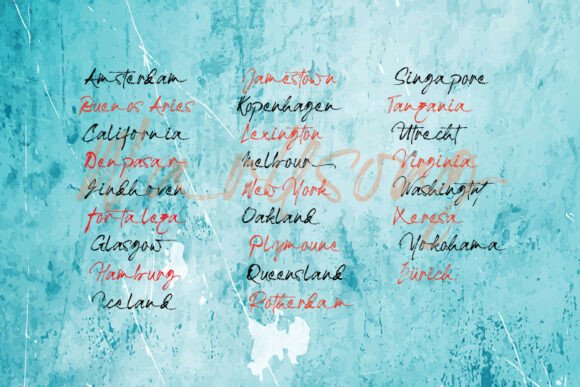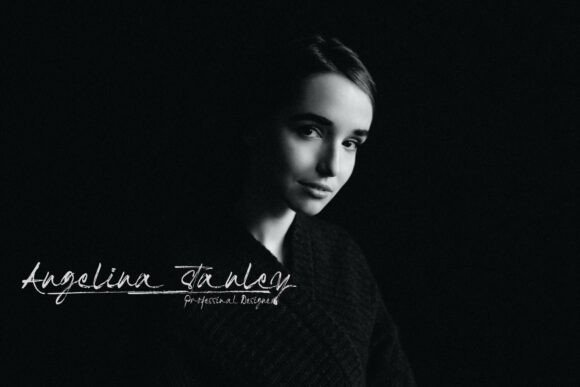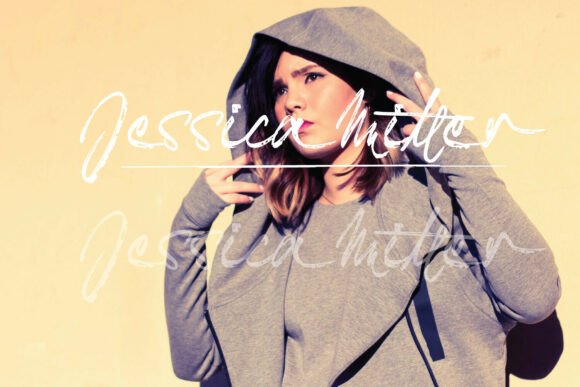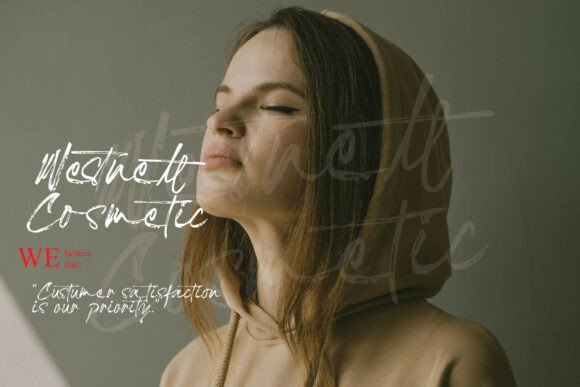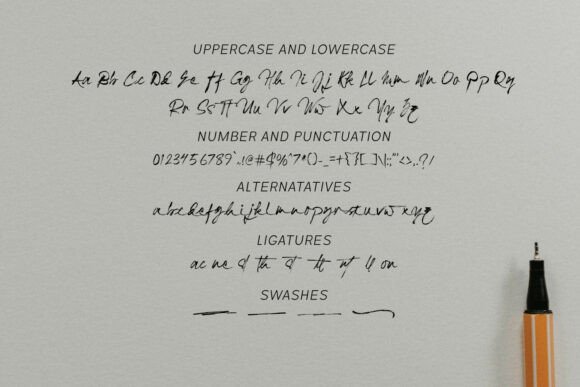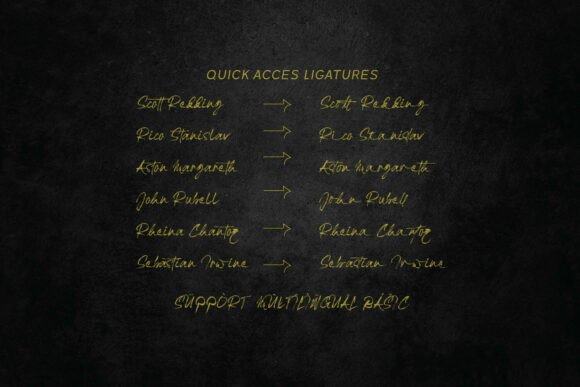
Introduction to Narllsong Font
Have you ever found yourself scribbling away in a notebook, lost in a creative flow, and suddenly, a beautiful handwritten font appears before your eyes? That’s exactly what happened to us when we first discovered the inspiration behind the Narllsong Font. Its unique, textured appearance and dry brush style sparked an idea that would eventually become a valuable design resource for creatives worldwide.
As designers, we’re always on the lookout for high-quality fonts that can elevate our projects and give them that extra oomph. That’s why we’re excited to introduce the Narllsong Font, a free download that’s perfect for various applications, from creative projects to branding and publishing. With its versatility and unique character, this font is sure to become a go-to design tool for anyone looking to add a touch of personality to their work.
Whether you’re working on a design project that requires a bold statement or a subtle touch, the Narllsong Font is an excellent choice. Its transparent background and high-quality design make it easy to use and customize, allowing you to focus on what really matters – bringing your creative vision to life.
Key Features of Narllsong Font
- High-quality, professional font design suitable for creative projects, offering a unique and stylish touch.
- Features a transparent background, allowing for easy layering and customization in your design work.
- Available in a range of sizes, from 12pt to 72pt, to accommodate various design requirements and resolutions.
- Designed with a high resolution of 300 DPI, ensuring crisp and clear text rendering, even at larger sizes.
- Unique characteristics include a modern, cursive script and elegant flourishes, making it an ideal choice for creative projects and design work.
Honest Review: Narllsong Font
As a designer, I’m always on the lookout for high-quality design resources to elevate my creative projects. Recently, I stumbled upon the Narllsong Font, and I must say it’s been a game-changer for me.
What works well: ✨ The Narllsong Font is incredibly versatile and can be used for a wide range of design projects, from logos to digital products. The font is also highly customizable, allowing me to adjust the size, color, and spacing to suit my needs. Additionally, the transparent background option makes it easy to use in various design scenarios.
However, there are a few limitations to consider: ⚠️ The font may not be suitable for very small text sizes, and the customization options can be overwhelming for beginners. Additionally, the font may not be compatible with all design software.
Overall, I’m thoroughly impressed with the Narllsong Font. It’s a fantastic design resource that has taken my creative projects to the next level. If you’re looking for a high-quality font to elevate your designs, I highly recommend giving the Narllsong Font a try.
Tips for Getting the Most Out of Narllsong Font
To get the most out of the Narllsong Font, use it in conjunction with other high-quality design resources and experiment with different font sizes and styles. You can also use it in conjunction with a transparent background to create a unique and eye-catching design.
The Narllsong Font is perfect for any creative project that requires a high-quality, modern font. Some common use cases include:
- Logo designs and branding
- Infographics and data visualizations
Alternatives to Narllsong Font
Pacifico is a beautiful, high-quality script font perfect for creative projects that require a touch of elegance. It’s ideal for wedding invitations, greeting cards, and other design elements that need a sophisticated look.
Pacifico has a similar feel to Narllsong Font, but with a more refined and polished appearance. It’s a free download and comes with a transparent background, making it easy to use in a variety of design scenarios.